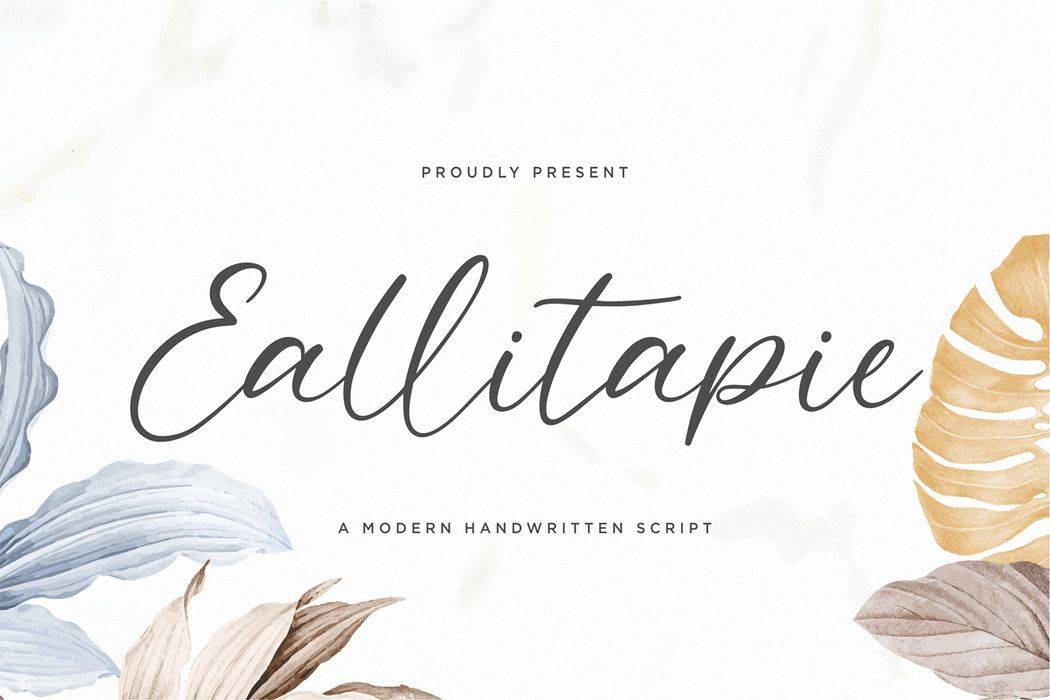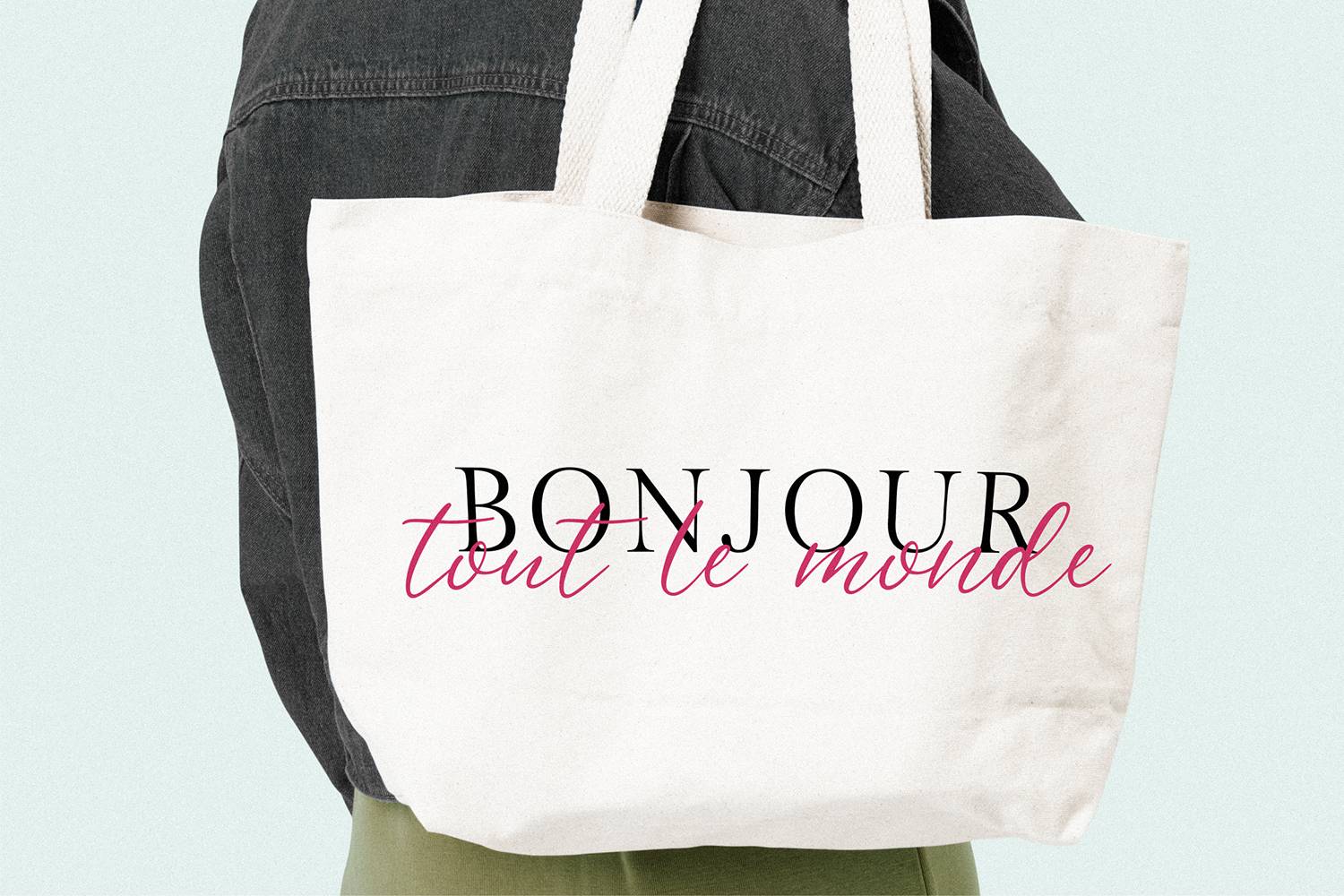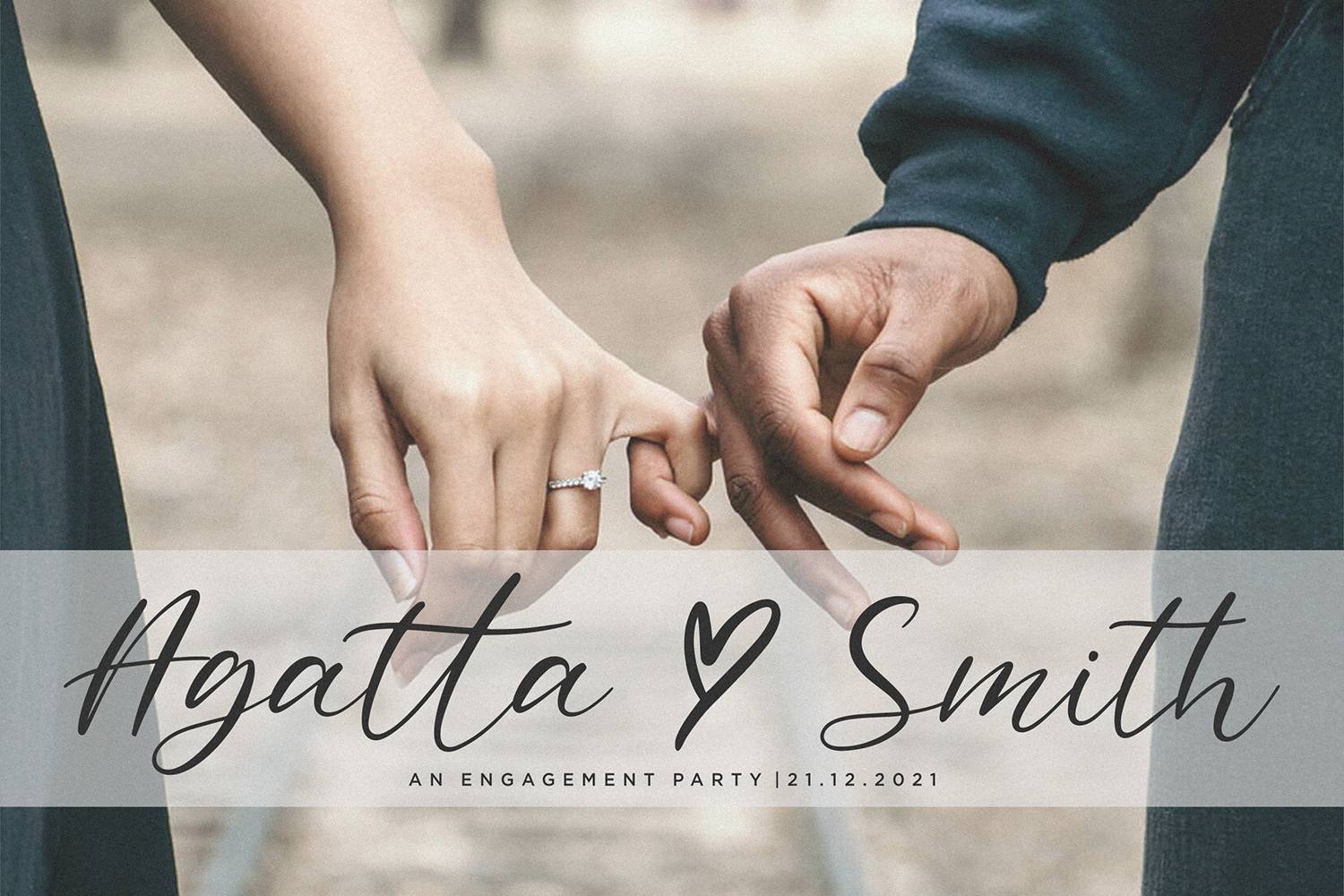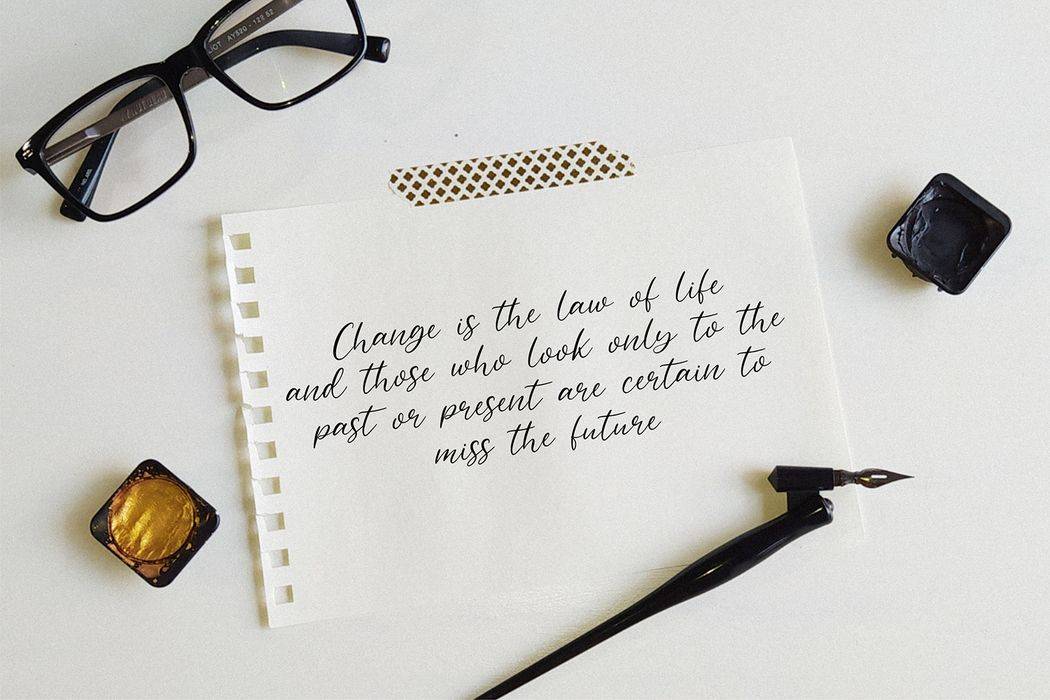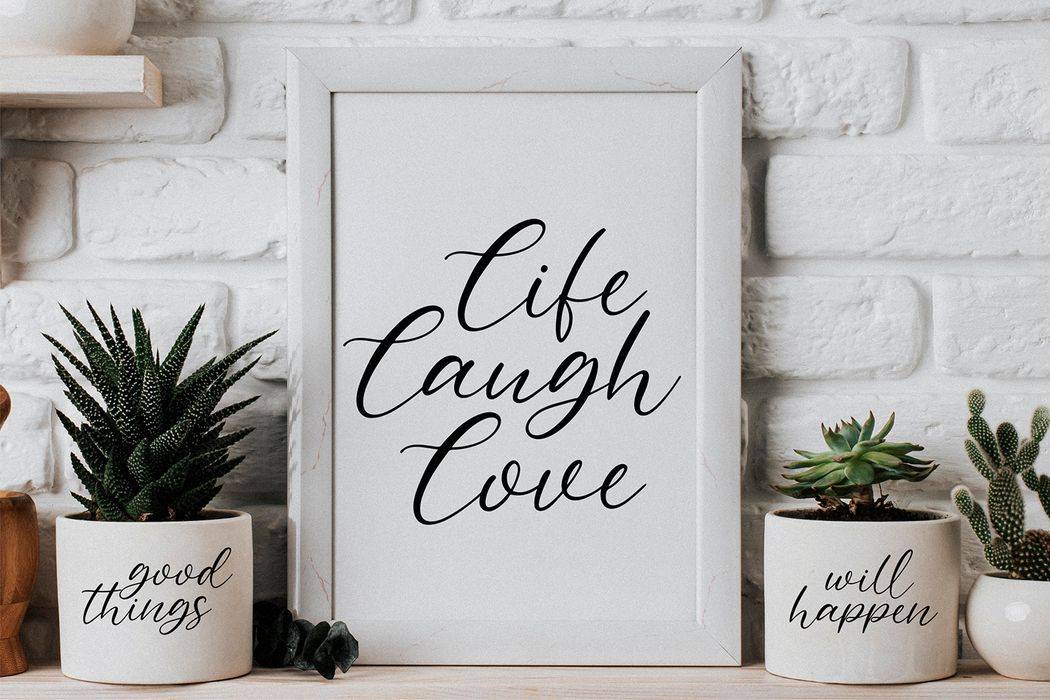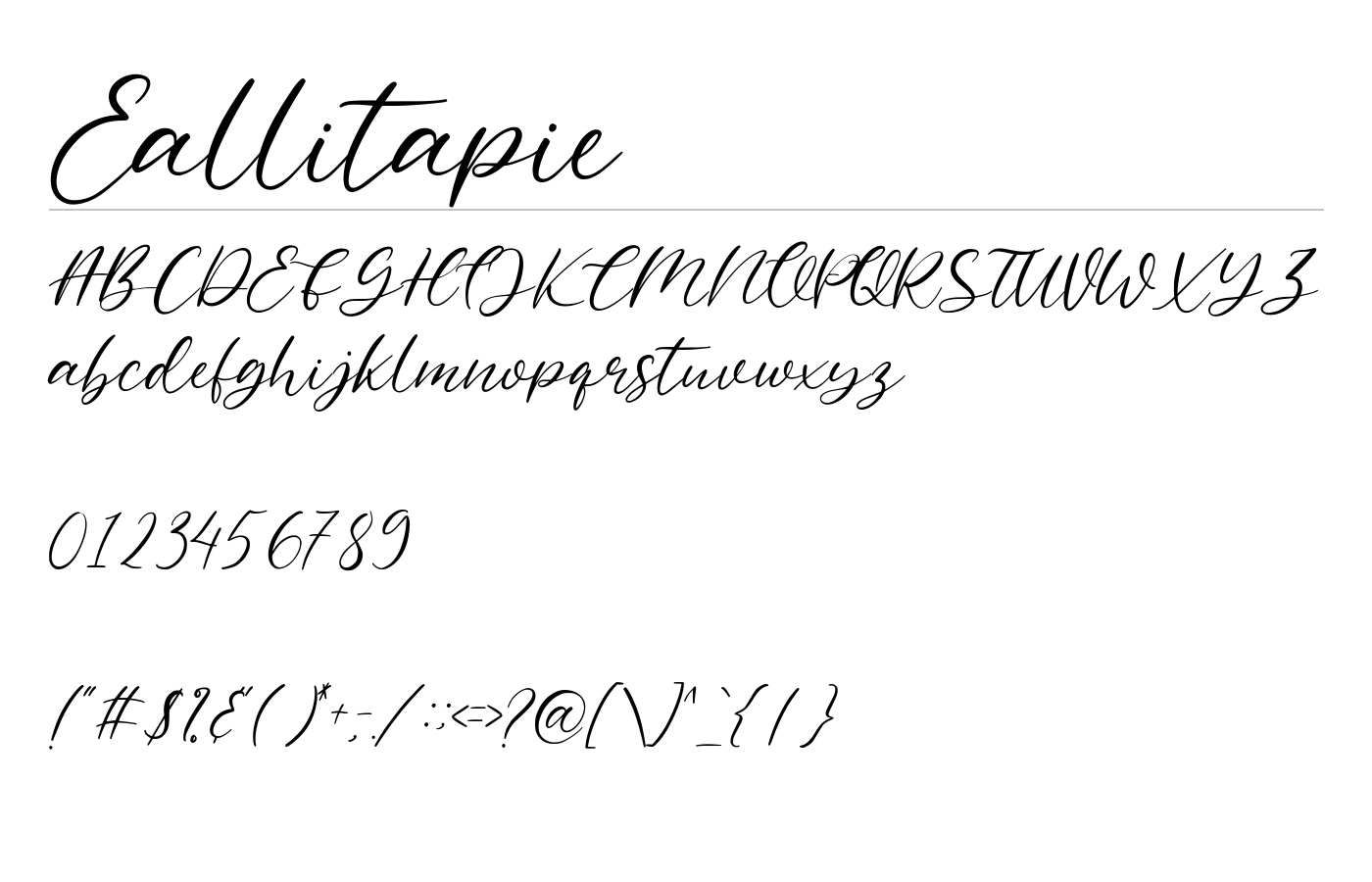
Eallitapie is a delicate, modern script font with smooth, flowing strokes that evoke a handwritten calligraphic style. Its elegant, light weight and high contrast lines make it perfect for adding a personal, sophisticated touch to invitations, branding, and stylish editorial projects. This font shines in designs that require a graceful, refined feel with a touch of warmth and charm.
Eallitapie Font
About Eallitapie Font